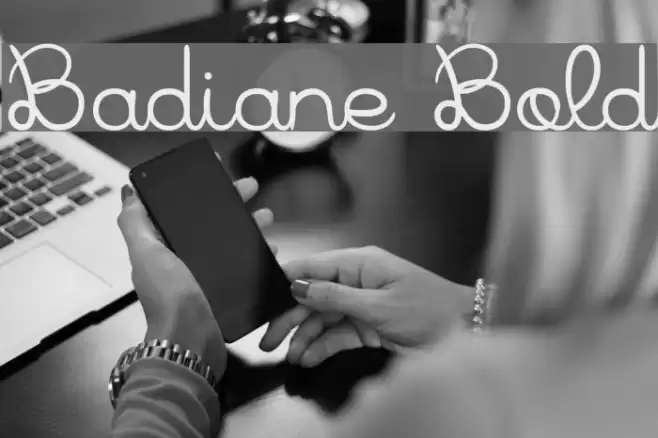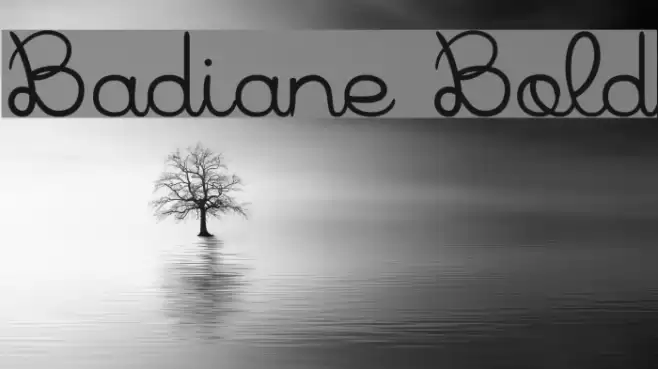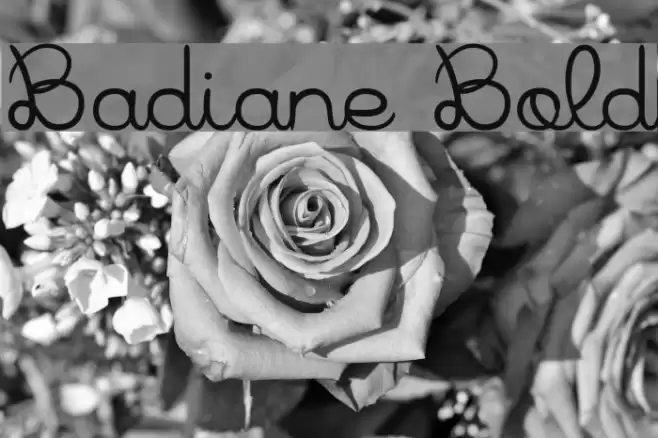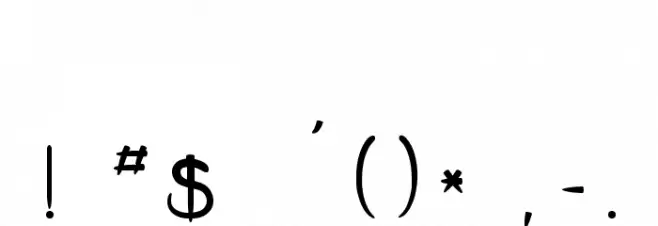
Badiane Bold Font
Badiane Bold Description
This font features an elegant and whimsical design with intricate curls and loops, giving it a playful yet sophisticated appearance. The uppercase letters are adorned with decorative swirls, while the lowercase letters maintain a smooth, flowing script style. The numerals and special characters complement the overall aesthetic with similar embellishments. This font is perfect for projects that require a touch of elegance and creativity, such as invitations, greeting cards, and branding materials.
An elegant, whimsical script font with decorative curls and loops from Uncategorized fonts.
- Proposed Projects: Ideal for invitations, greeting cards, branding, and creative projects.
- Use Case: Headlines, Logos, Decorative text